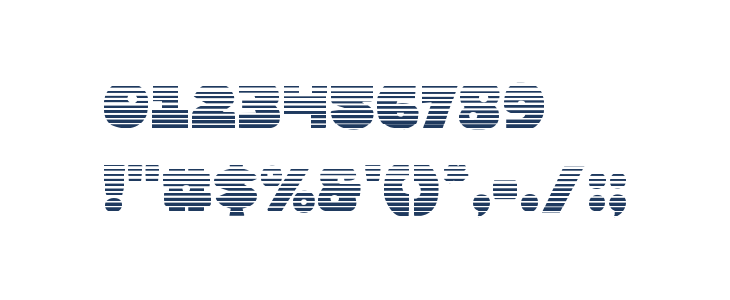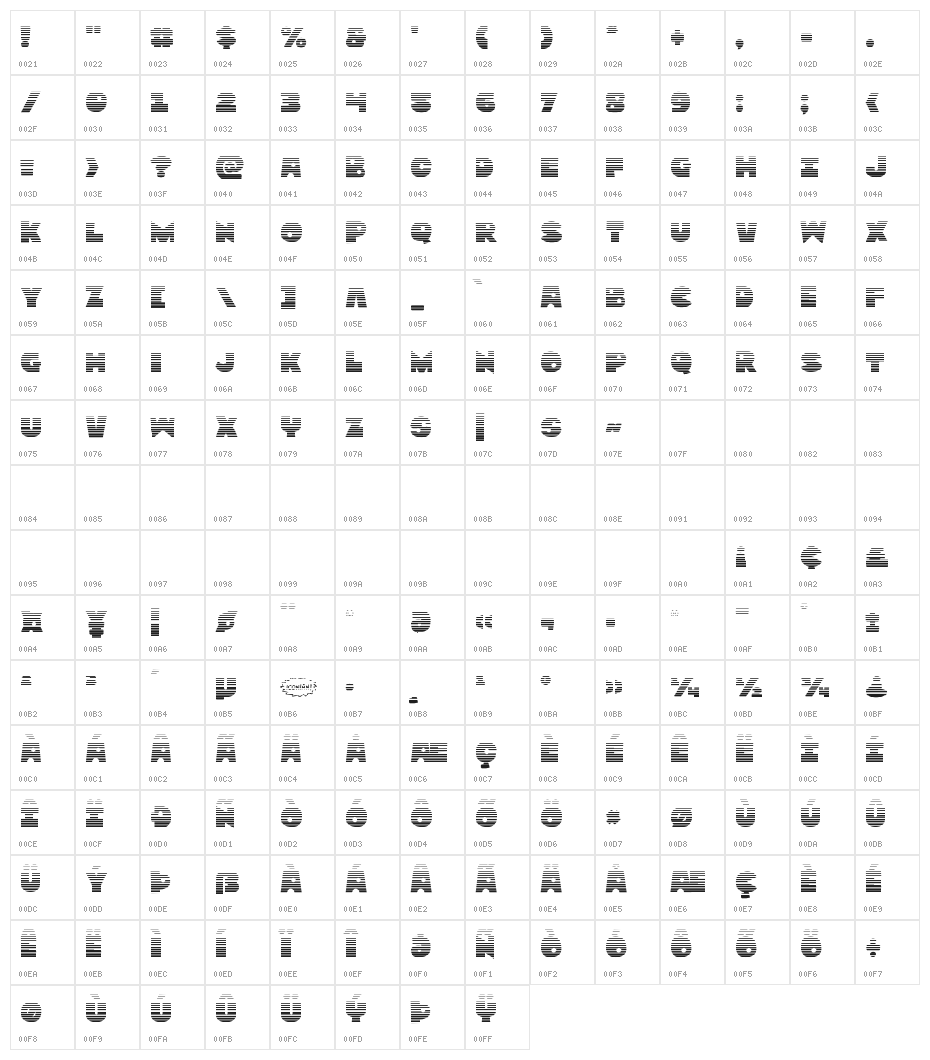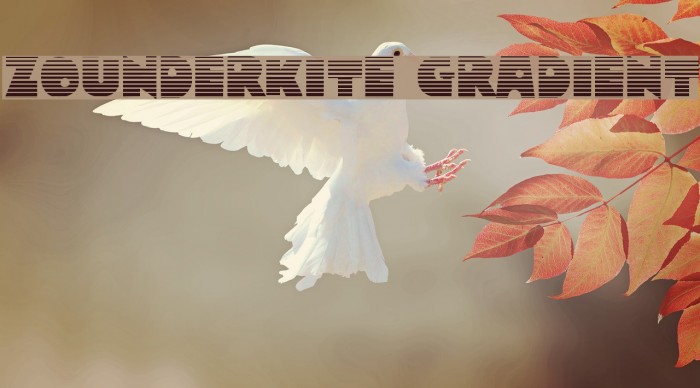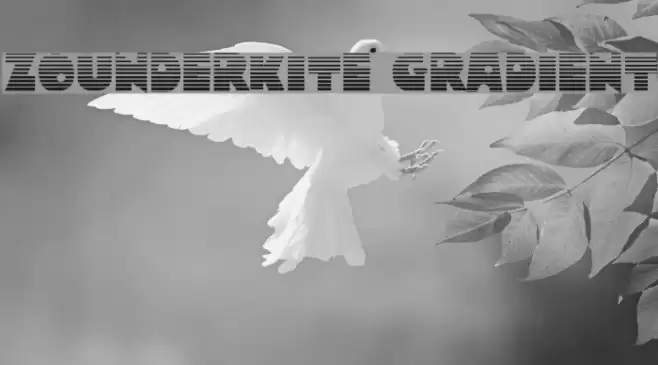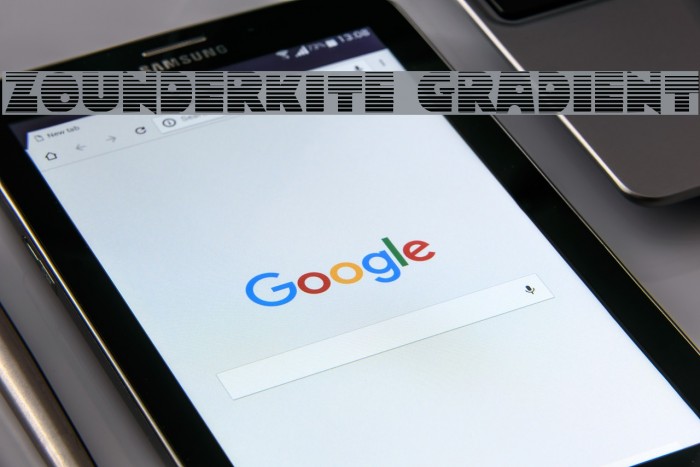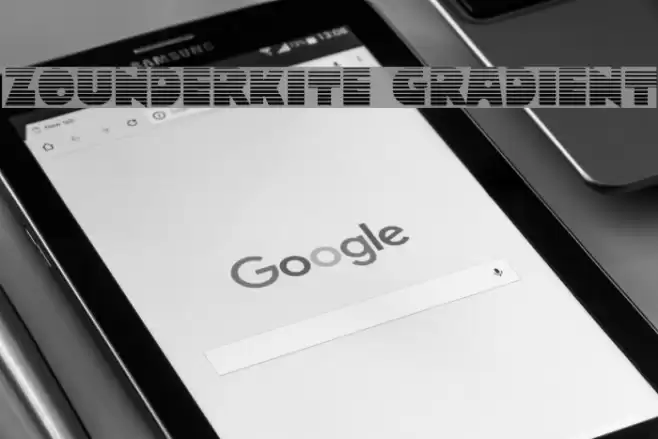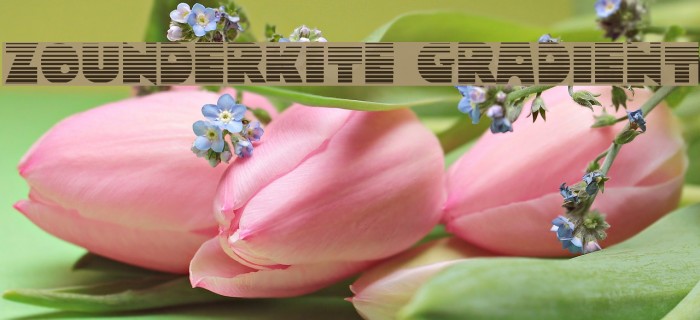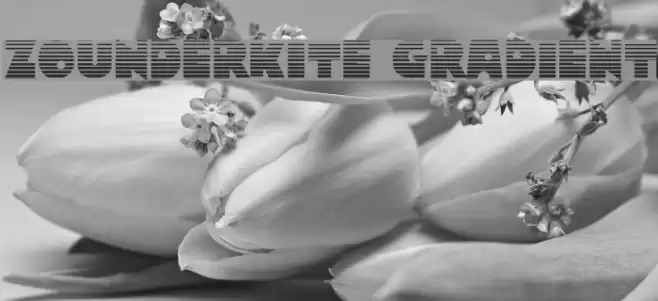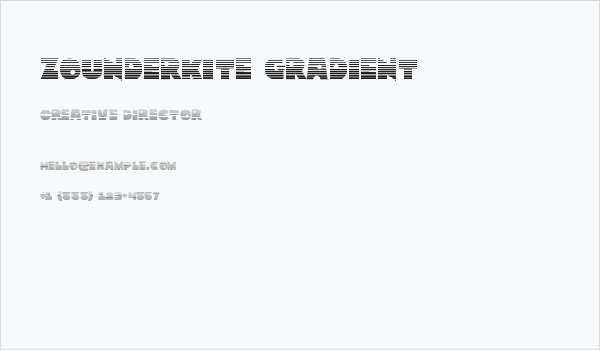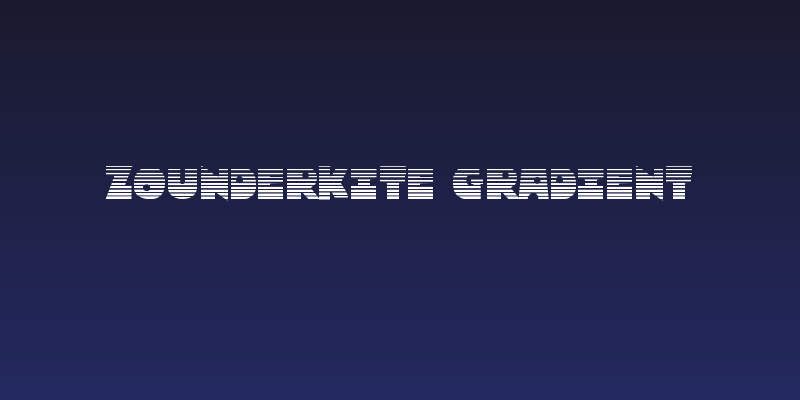
Zounderkite Gradient Font
Zounderkite Gradient Description
This font features a bold, modern design with a unique striped pattern running horizontally across each character. The uppercase and lowercase letters are consistent in style, creating a cohesive look. The numbers and special characters maintain the same striped aesthetic, ensuring uniformity throughout. The font's boldness and distinct style make it stand out, while the horizontal lines add a sense of movement and dynamism. This design is eye-catching and suitable for projects that require a strong visual impact.
| Proposed Projects | Ideal for branding, posters, headlines, and any design needing a bold, modern touch. |